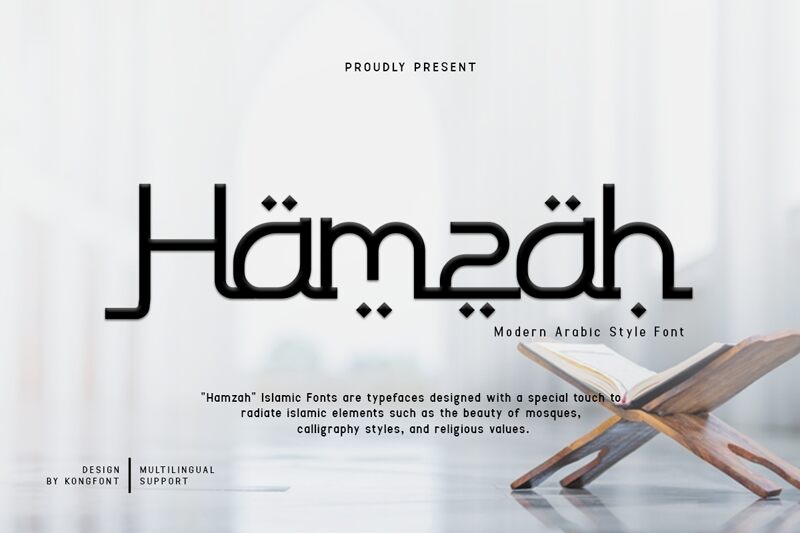
Hamzah font crafted by Kong Font is a free font for personal use. Inspired by Arabic calligraphy, this typeface displays harmony and elegance in an architectural manner. The font’s balance is achieved with sophistication and modernism. Geometric letters, complex cuts, and elegant accents are some characteristics that can best describe it.
The font is suitable for branding, labels, posters, websites, packaging, and all types of printed ads/projects. It works for both large display sizes and works when used with smaller sizes. Pair it with a serif typeface and create your nice future design projects.